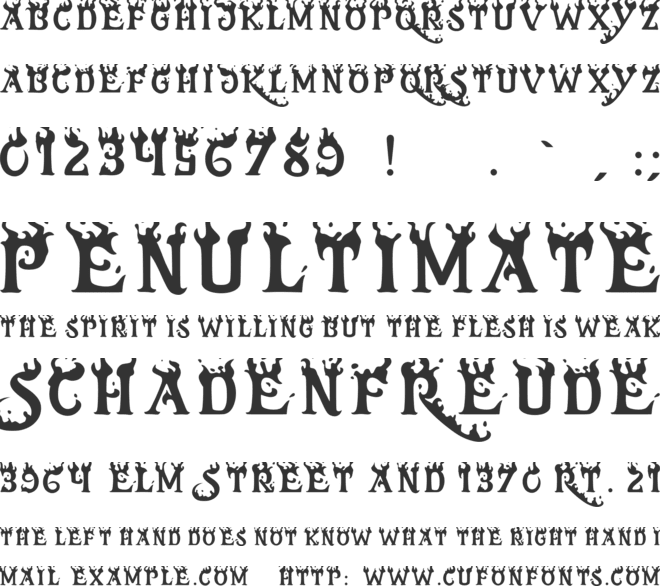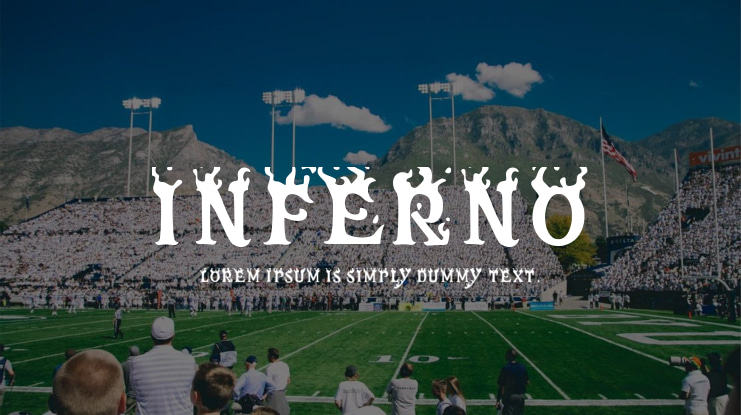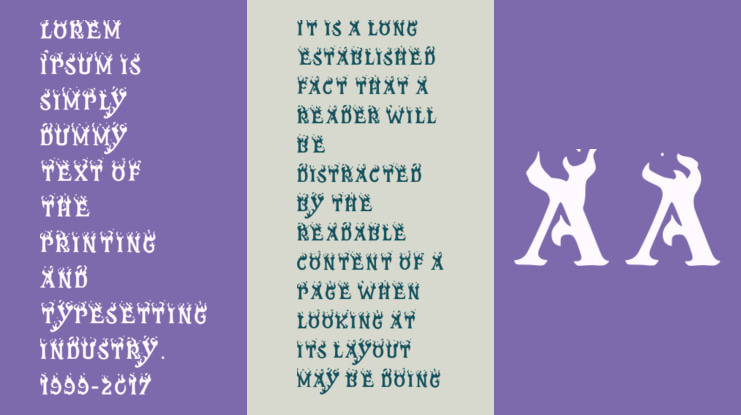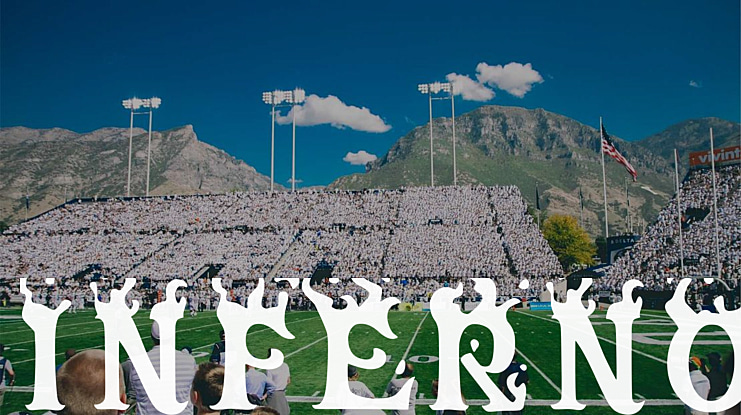
inferno Font
A fiery font, that surprisingly works well as water/wave too. Two sides of the same coin I guess. :) Inspired by … fire! Oh how unexpected.
Includes uppercase, lowercase, numbers and Greek.